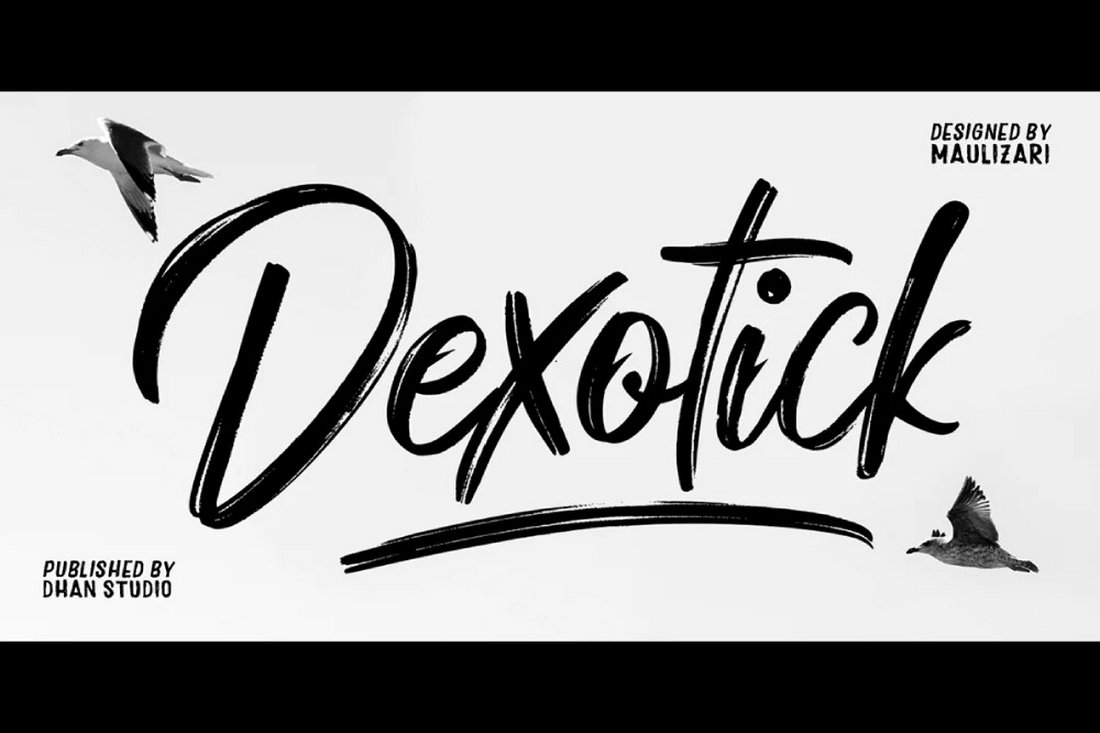
35+ Best Paint Brush Fonts (Free & Pro)
When you want to make your typography look bold, splashy, and distinctive at the same time, a paint brush font is the way to go.
Paint brush fonts or brush fonts are usually the go-to choice for crafting big and eye-catching titles and headings for designs. Whether it’s a poster, banner, website header, or even a custom T-shirt, these fonts will fit in anywhere.
Today, we bring you some of our favorite brush fonts in this collection. It includes both premium and free brush fonts with all kinds of wild designs. Start exploring and make sure to add a few of these to your personal fonts collection.
Native Brush – Bold Brush Font
This is one of the best brush fonts you can use to craft attention-grabbing typography for your designs. Its rough textured design of the letters will make your text stand out above all else. The font also comes with lots of ligatures, glyphs, and alternate characters for you to use in your designs.
Brush King – Big Brush Font
This brush font may actually live up to its name. The giant letters and the realistic-looking brush strokes make it truly the king of brush fonts. You can use it to design giant titles for posters, banners, social media, and much more. The font only has all-caps letters.
Hands Brush – Strong Urban Brush Font
Hands Brush is a creative brush font that comes with a unique brush stroke letter design. This font also has an urban-style look that goes well with fashion, lifestyle, and adventure-themed designs. It’s great for logo and branding designs as well.
Dalton John – Quick Paint Brush Font
With a captivating, natural texture and clear classy style, this font is perfect for your graphic design projects. Use it for logos, quotes, product packaging, headers, posters; Dalton John lends an authentic, handwritten charm to any project.
Goal Goodies – Quick Brush Font
Goal Goodies is a paint brush font that’s ideal for your creative projects. Ideally suited for logos, quotes, invitations, headers, and packaging, this font brings a charming, authentic handwriting taste to your work.
Captain Casual – A Sign Painter Font
Captain Casual, inspired by hand-painted sign craft, brings a unique brush-lettering style to your font toolkit. Combining legible yet laid-back design elements, this font system offers regular and all-caps options, accents, symbols, and decorative underlines.
Blackrose – Paint Brush Font
BLACKROSE is a prominent brush font, expertly designed to amplify your creative projects. Ideal for use in brand promotions, travel advertising, and various marketing materials, its vigorous and bold strokes capture attention, infusing a sense of adventure and thrill into any design.
Kurhamo – Japanese Style Brush Font
Kurhamo is a Japanese-style brush font steeped in elegance and artistry. Capturing the grace of traditional calligraphy, the font comes in two versatile styles: Regular and Italic. Ideal for projects requiring cultural class, the font is expressive and dynamic, perfect for a diverse array of applications.
Lembah Baliem – Paint Brush Font
This is a beautifully crafted brush handwritten font that brings a fusion of raw energy and dynamic charm to your designs. Perfect for logos, posters, and packaging, this bold and versatile font’s natural brush texture creates a potent, stylish impact.
Lighten – Brush Display Font
Lighten is an expressive, paint brush style display font that flawlessly emits a unique handcrafted essence. This versatile font is perfect for creating a distinctive signature, enhancing stationery or website headers, or adding a personalized touch to logos and typography quotes. Lighten is available in OTF, TTF, and WOFF formats.
Frank Freak – Marker Brush Font
Frank Freak is a distinctive, highly detailed paintbrush font that’s perfect for retro-urban designs, business branding, apparel designs, logos, and more. It boasts multilingual character accents, numerals, and punctuation, and accommodates OTF, TTF, and WEB font formats.
Aspan – Handmade Paint Brush Font
Aspan is a playful and unique handmade brush display font. With smatterings of alternate and ligature characters, it brings a digestible blend of creativity and fun to your projects. This font caters to multilingual requirements, ensuring your work is accessible and engaging.
Westbum – Paint Brush Font
Westbum is a bold hand brush font that’s ideal for an array of uses. Its striking design makes it perfect for titles, logo creation, product packaging, branding projects, and various social media uses. Its versatility also allows it to be used for magazines, weddings, or just to make words stand out against a background.
BAD BRUSH – Simple Paint Brush Font
Bad Brush is another fun and creative paint brush font featuring a radical and trendy design. It has simple and casual-looking letters that will complement designs related to fun, energetic, and modern brands. The font includes both uppercase and lowercase letters.
Furiosa – Geometric Brush Font
At first glance, you can see where this font got its inspiration from. The rough brush strokes and thick letters truly give it a Mad Max vibe. You can use it to craft bold titles for posters, videos, YouTube thumbnails, and much more. The font comes in two styles and 30 glyphs.
Good Brush – Free Authentic Brush Font
This is a free brush font that comes with a unique textured letter design. It has authentic brush stroke letters that give a hand-drawn look to your typography. The font is free to use with your personal and commercial projects.
Dexotick – Free Paint Brush Font
Dexotick is one of the most creative paint brush fonts on our list and it’s free to download. This font will make your print designs look even more amazing. It can be used in your commercial designs as well.
RUNWAY – Paint Brush Font
Runway is another creative paint brush font that comes with a minimalist feel. It’s a dry brush font that works well for designing clean-looking headings and titles. The font features all-caps letters with many unique alternate characters.
Ocean Rush – Creative Brush Font
Ocean Rush is a modern brush font with an aesthetic feel. It has a realistic-looking brush stroke look that will add a fearless and daring look to your typography designs. This makes it a great option for outdoors, adventure, and travel-themed projects.
Famous Brush – Textured Brush Calligraphy Font
Brush calligraphy fonts are commonly used in wedding invitations, greeting cards, menu designs, and even product packaging. Mainly because of the way they add a hand-crafted look to your typography. This font is a great choice for those types of projects.
Solidpain – Unique Paint Brush Font
This is one of the odd-looking paint brush fonts on our list. Rest assured, you won’t find another brush font like this one. It will definitely make your titles and headings stand out from the crowd. The font includes all-caps letters, alternates, and multilingual support.
JUNKER – Brush Stroke Font
Junker is another unique brush font that features a different style of letter design. The creative blocky characters give it an identity of its own. This font will help you craft big titles for posters and flyers. It has all-caps characters with italics.
Aloha Brush – Free Paint Brush Font
Grab this font for free to craft unique titles and typography for your modern design projects. It comes with a set of creative characters with realistic-looking brush textures. It’s free for personal use.
Radikal – Free Brush Script Font
The signature-style script letter design makes this font the perfect option for designing business cards. It’s also great for label and branding designs. The font is free to use with your personal projects.
Hendry – Thick Brush Font
Nothing grabs attention more than a title made with a big chunky font. This brush font also comes with a letter design featuring thick brush strokes. It will easily make your posters, banners, and signage look much more visible. The font only includes all-caps letters.
Roosevelt – SVG Paint Brush Font
Roosevelt is a unique paint brush font that features a rough textured look and feel. It’s an SVG font, which will only function with modern graphic design software. However, it’s perfect for adding distinctive typography to your designs.
Hot Sauce – Creative Paint Brush Font
This font uses a different style of brush stroke design for its letters. It features rough jagged edges to give your designs a raw look and feel. The font will go well with most print designs, including packaging designs, posters, and more.
Moksha – Hand-Painted Brush Font
If you want to create brush-style typography designs with smooth designs instead of rough brush strokes, this font is a great choice for you. It has smooth script-style letters with a hand-painted feel. This font can be used for logos, labels, book covers, and greeting card designs.
Last Paradise – Modern Brush Font
Last Paradise is a modern brush font that features a set of urban-style characters. It has uppercase and lowercase letters with lots of cool swashes to make your title designs look wild and unique. There are lots of alternates and glyphs included in the font too.
Brushways – Free Paint Brush Font
Brushways is another free paint brush font with a cool letter design. You can use it to create beautiful and modern typography for various types of design projects. The font is free for personal use.
Hamberg – Free Brush Font
Hamberg is a unique brush font that comes with a different style of letters. It has thin brush strokes with a hand-drawn look. The font is great for greeting cards, mug prints, and packaging designs. It’s free to use with personal projects.
Siberia – Rough Paint Brush Font
Looking for a brush font with a rough textured design? Then be sure to download this font. It comes with a set of bold and attractive letters that are best for crafting logos, labels, packaging designs, and more for sports, gym, fitness, and masculine brands.
Hypetype – Painted Brush Font
Gypetype is a unique brush font you can use to craft headings and titles for modern and urban designs. The font has letters that have painted textures with realistic-looking brush strokes. It’s ideal for title designs as it comes with all-caps letters.
Paint Brush Script Logo Font
A beautiful script font for crafting logos, labels, and various other branding designs. It comes with unique brush-style letters that look amazing on both light and dark backgrounds. The font has both uppercase and lowercase characters.
Floweress – Hand-Painted Brush Calligraphy Font
Floweress is another beautiful script calligraphy-style brush font with hand-painted letter designs. This font will make your wedding invitations and greeting cards look even more special. It’s especially suitable for designs that require a feminine look and feel.
Budool – Brush Handwriting Font
Budool is a beautiful brush font with a stylish handwritten letter design. This font is most suitable for designs related to personal branding and especially for business cards and label designs. It comes with lots of ligatures, alternates, and glyphs.
Top Light – Stylish Brush Font
With this font, you can design stylish and trendy typography for all your fun and entertainment-related projects. It will fit almost any type of design from music flyers to posters, product labels, CD covers, and custom T-shirts.